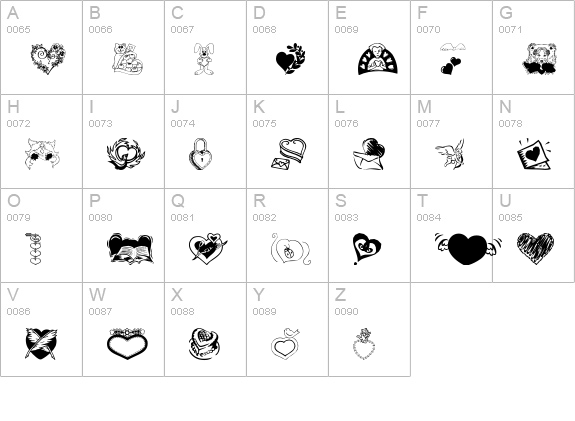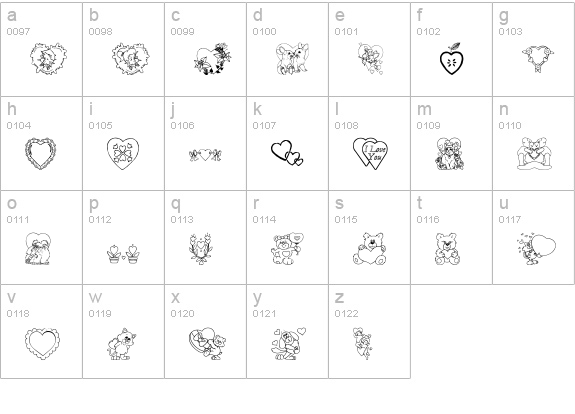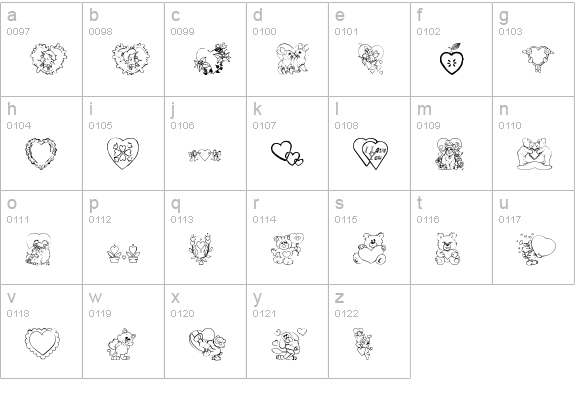
Someone Special Font Details
The Someone Special font is a truly remarkable typeface that captivates with its unique blend of elegance and charm. Its delicate curves and graceful lines exude a sense of sophistication, making it perfect for adding a touch of refinement to any design project. This font possesses a certain enchanting quality that sets it apart from the rest. Its carefully crafted letterforms have been meticulously designed to evoke a feeling of warmth and intimacy, making it the ideal choice for expressing heartfelt sentiments or creating a romantic atmosphere. But what truly sets the Someone Special font apart is its availability for free download at FontsMarket.com. This means that anyone can access and utilize this exquisite typeface without any cost or restrictions. Whether you are a professional designer looking to elevate your work or an individual seeking to add a personal touch to a special occasion, the Someone Special font will undoubtedly surpass your expectations. With its wide range of weights and styles, this font offers endless possibilities for creative exploration. From elegant wedding invitations and heartfelt love letters to eye-catching logos and stylish branding materials, the Someone Special font lends a touch of sophistication to any project, making it truly versatile and adaptable. The Someone Special font is a true testament to the power of design and the beauty that can be achieved through typography. Its seamless blend of elegance and charm, coupled with its availability as a free download at FontsMarket.com, makes it an essential addition to any designer's toolkit. So go ahead, unleash your creativity and let the Someone Special font elevate your designs to new heights of excellence.